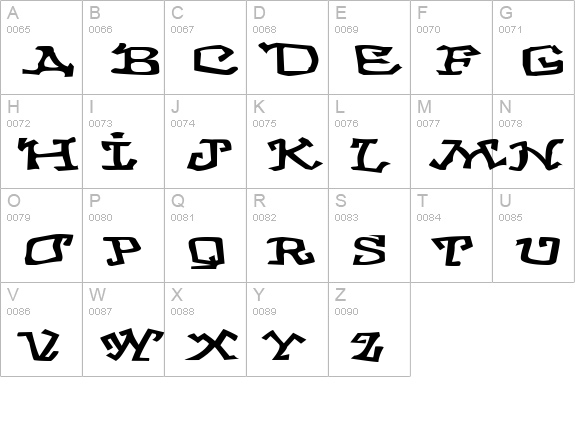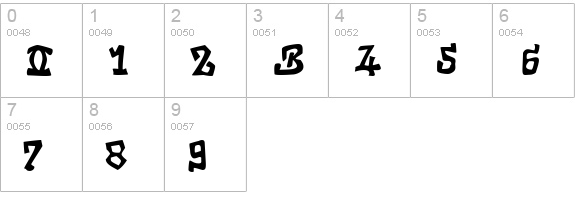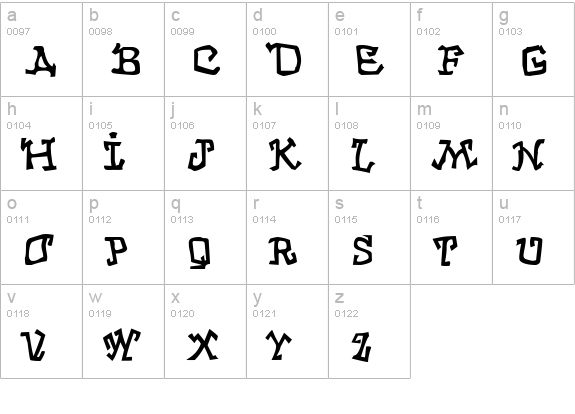
GraffitiThree Font Details
GraffitiThree font is a dynamic and expressive typeface that captures the urban energy and rebellious spirit of graffiti art. With its bold and edgy design, this font is perfect for making a statement and adding a touch of urban flair to your projects. The rugged strokes and rough edges of GraffitiThree font give it a raw and authentic look that will make your text stand out. Best of all, GraffitiThree font is available for free download at FontsMarket.com. So go ahead and unleash your creativity with this unique and eye-catching typeface. Whether you're working on a street art project or simply want to add a touch of urban style to your designs, GraffitiThree font has got you covered. Download it now and let your words make a bold statement with this free and exciting font.